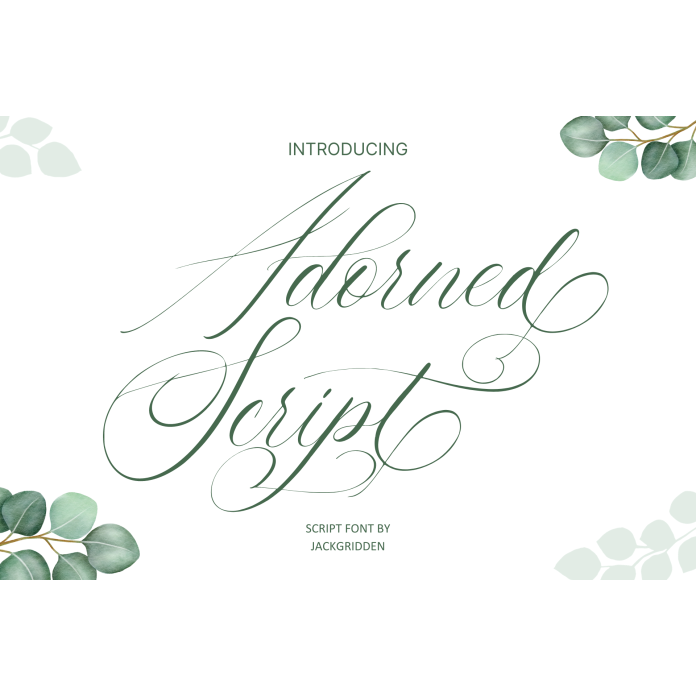
Adorned Script has a lovely ring to it! it suggests something decorative or embellished. Adorned Script like a wonderful choice for a wedding-related script. It conveys a sense of elegance and beauty, which is perfect for such occasions.